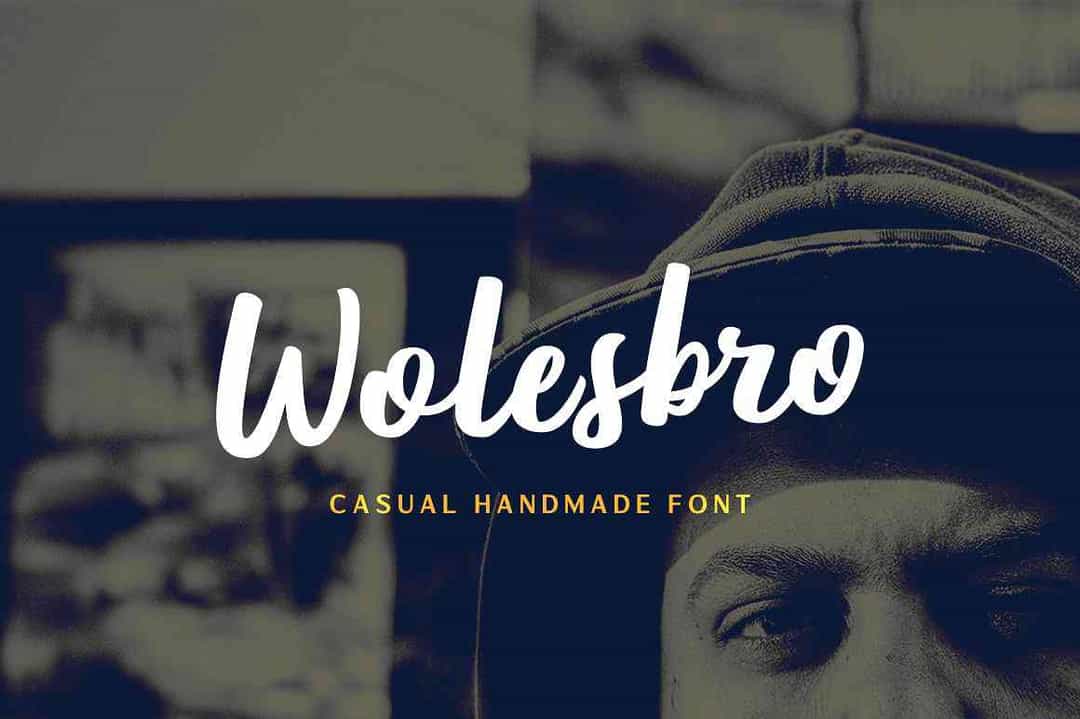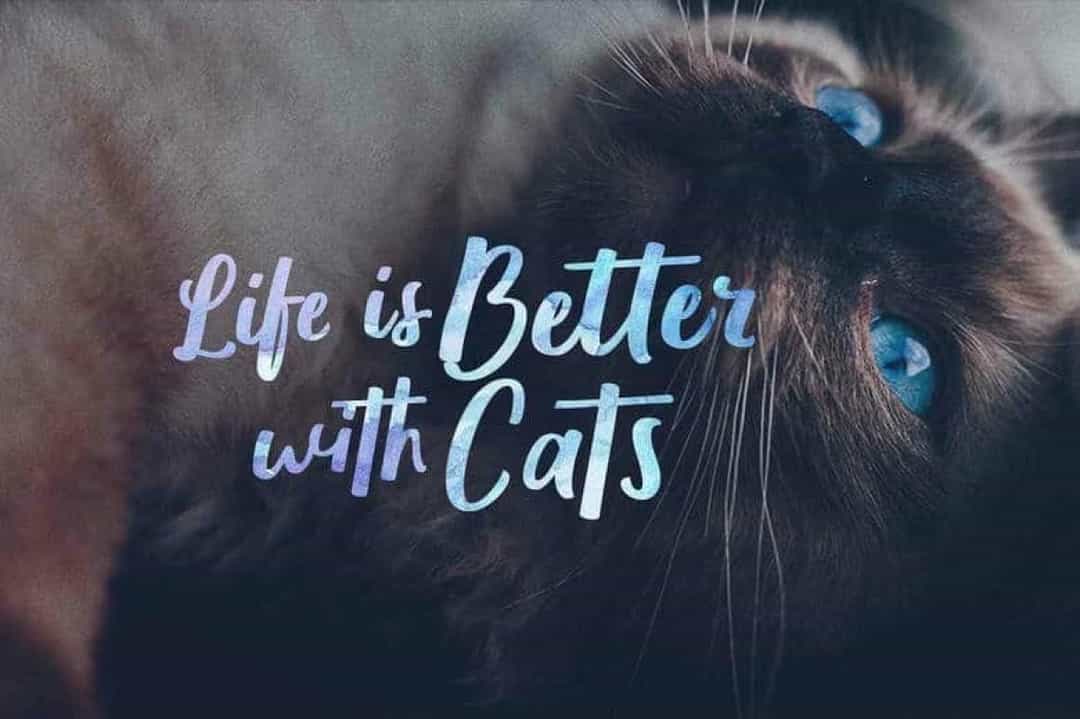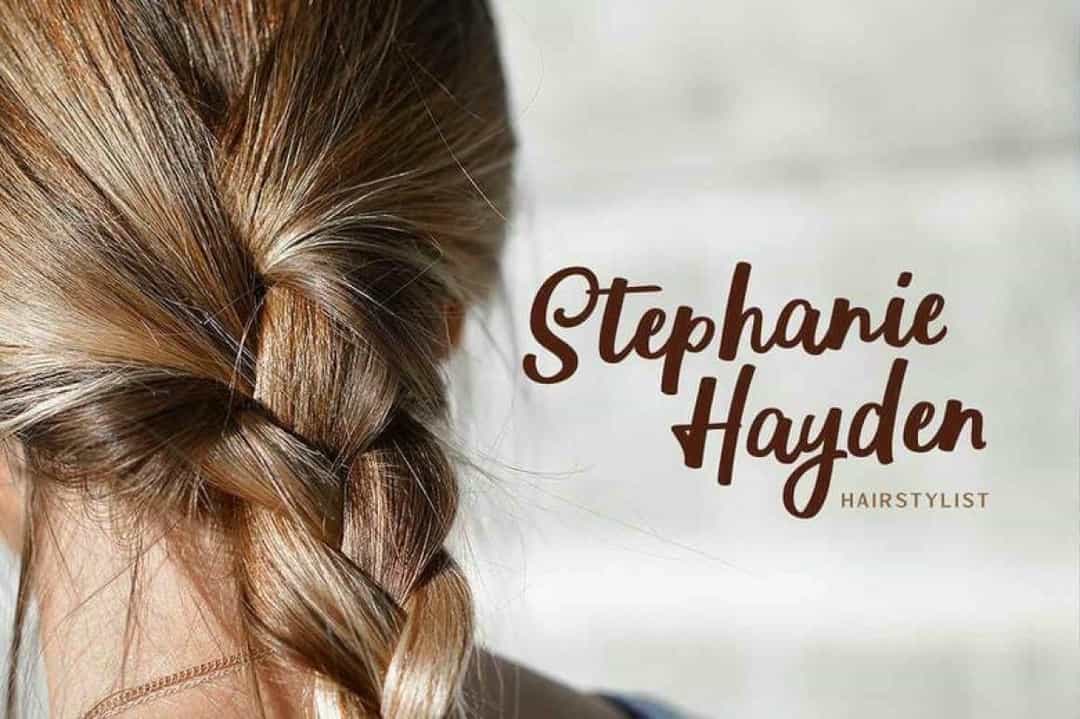
Discover Wolesbro Brush Font, part of the Brush collection—a versatile and unique font perfect for adding a personal touch to your projects. Download it for free and enjoy crafting designs with style, from invitations to social media posts. This font is available exclusively for personal use, giving you the freedom to create without limits. Unlock your creativity with Wolesbro Brush Font today!
Introducing Wolesbro, a natural handwriting font suitable for branding, t-shirts and apparel design, tote bag, pillow, quotes, film title, special events promotions or anything that need handwriting taste without forgetting readibility.